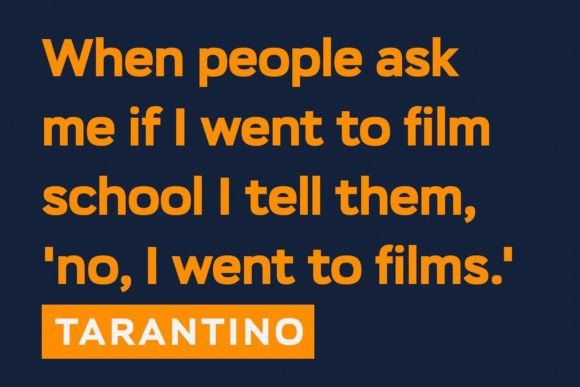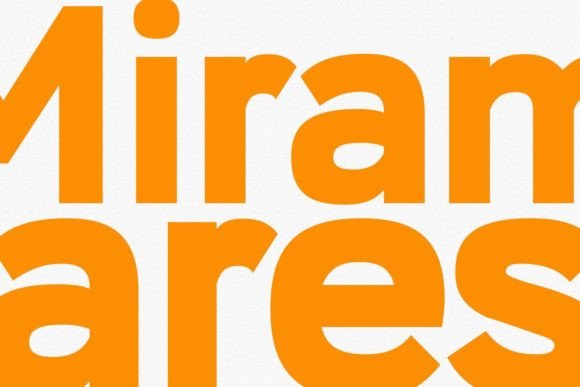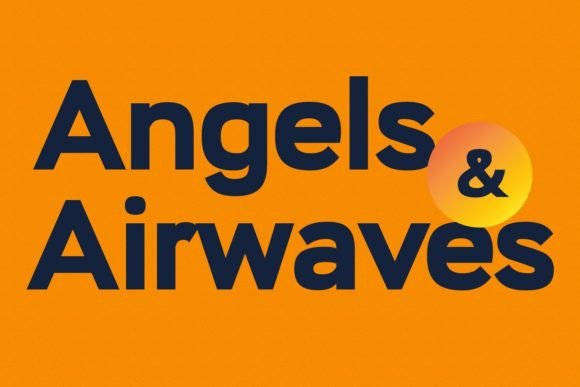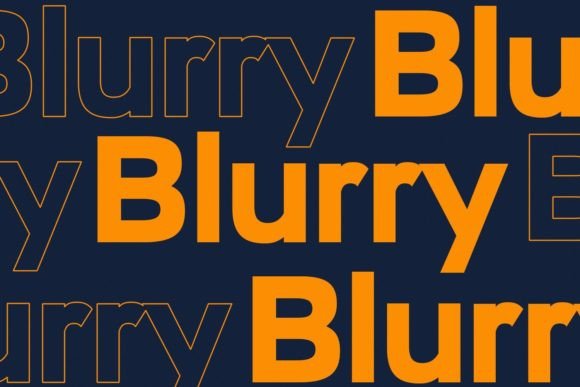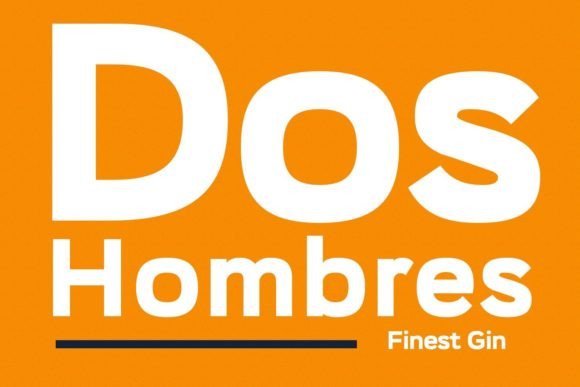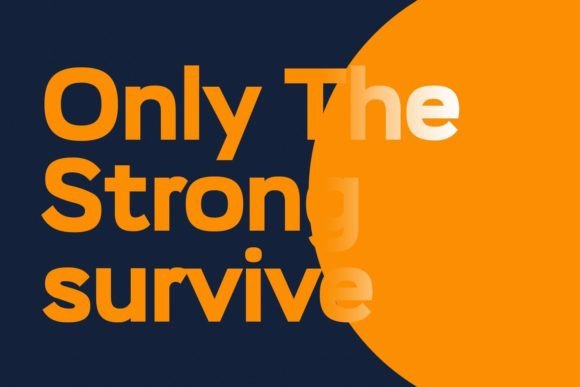
Introducing Geora Font: The Ultimate Semi-Geometric Sans Serif for Creative Projects
Are you on the hunt for a font that can elevate your design game and add a touch of modern flair to your projects? Look no further than Geora Font, a simply semi-geometric sans serif font that’s perfect for a wide range of creative applications. With its medium low contrast stroke, fun character, and exciting features like ligatures and alternates, Geora is the ideal choice for designers and crafters looking to make a statement.
What Makes Geora Font So Special?
Geora Font is designed to provide a unique blend of simplicity and creativity. Its semi-geometric sans serif design makes it versatile and easy to read, while its medium low contrast stroke adds a touch of sophistication. The font comes with a range of exciting features, including:
- Fun character: Geora Font has a playful personality that’s perfect for designs that need a bit of whimsy.
- Ligatures and alternates: The font includes a range of ligatures and alternates that allow you to add extra creativity to your designs.
- PUA encoding: Geora Font is PUA encoded, which means you can access all of the amazing glyphs and ligatures with ease.
Geora Font is an incredibly versatile font that’s perfect for a wide range of design applications. Here are just a few ideas to get you started:
- Logo design: Geora Font’s unique blend of simplicity and creativity makes it perfect for logos that need to stand out.
- Social media: Use Geora Font to create eye-catching social media graphics that are sure to grab attention.
- Movie titles: The font’s semi-geometric sans serif design makes it perfect for movie titles that need to look modern and sophisticated.
- Book titles: Geora Font is also great for book titles, adding a touch of elegance and refinement to your design.
- Short text and long text letters: Whether you’re working with short phrases or long blocks of text, Geora Font is easy to read and looks great.
- Secondary text font: Geora Font pairs perfectly with both sans and serif fonts, making it a great choice for secondary text.
Why Choose Geora Font?
So why should you choose Geora Font for your next design project? Here are just a few reasons:
- Unique design: Geora Font’s semi-geometric sans serif design sets it apart from other fonts.
- Easy to use: The font is PUA encoded, making it easy to access all of the amazing glyphs and ligatures.
- Versatile: Geora Font is perfect for a wide range of design applications, from logos to book titles.
- High-quality: The font is designed to provide a high-quality design that’s sure to impress.
Make Stunning Work with Geora Font
In conclusion, Geora Font is an exceptional semi-geometric sans serif font that’s perfect for designers and crafters looking to add a touch of modern flair to their projects. With its unique design, exciting features, and versatility, Geora Font is sure to become a go-to choice for a wide range of creative applications. So don’t miss out – get your hands on Geora Font today and start creating something amazing!